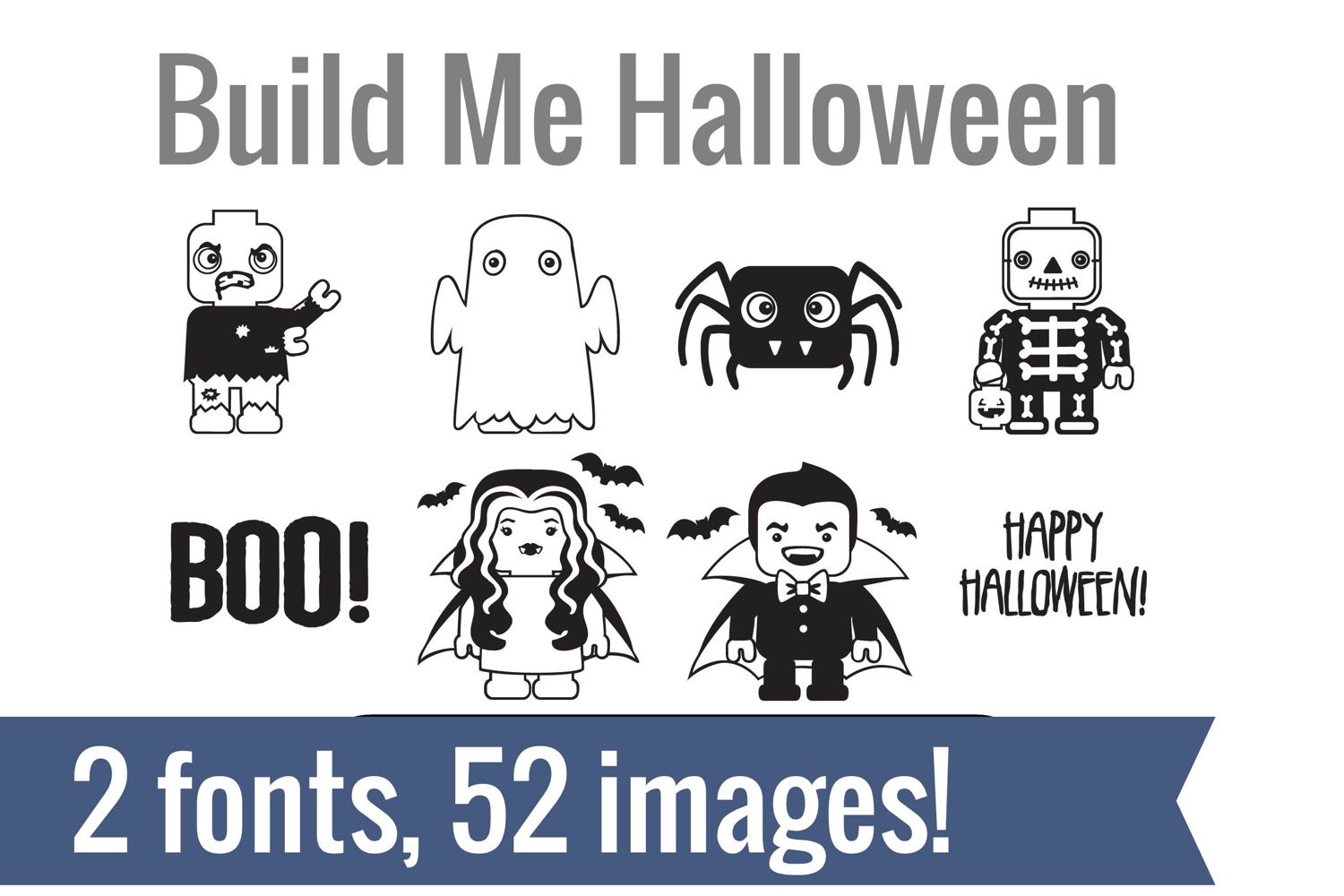
Build Me Halloween/ Harvest Dingbats
Unlock endless creativity with two perfectly coordinated fonts! There are two dingbat fonts in this bundle, both sporting little construction toys dressed for the Halloween and Thanksgiving holidays.